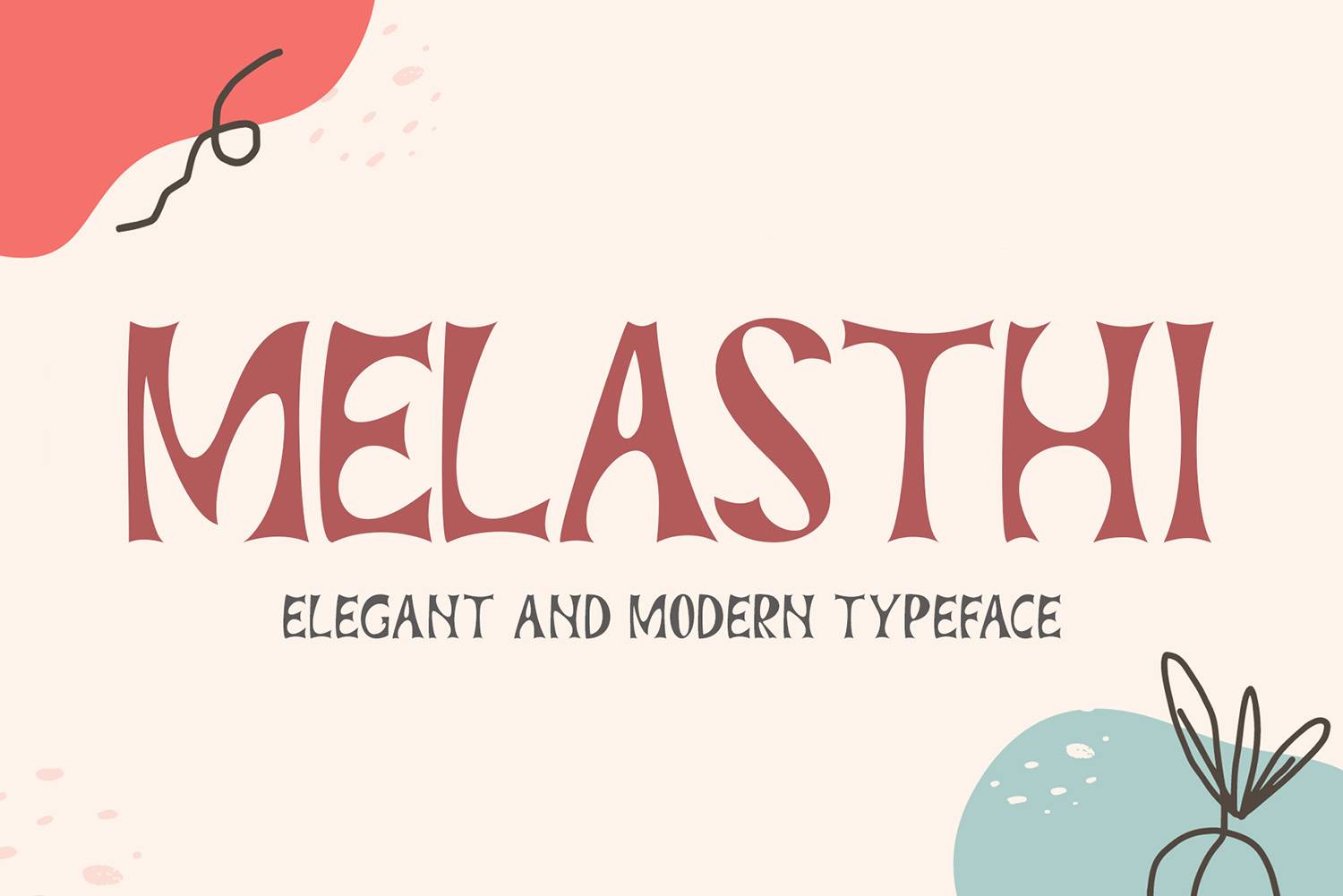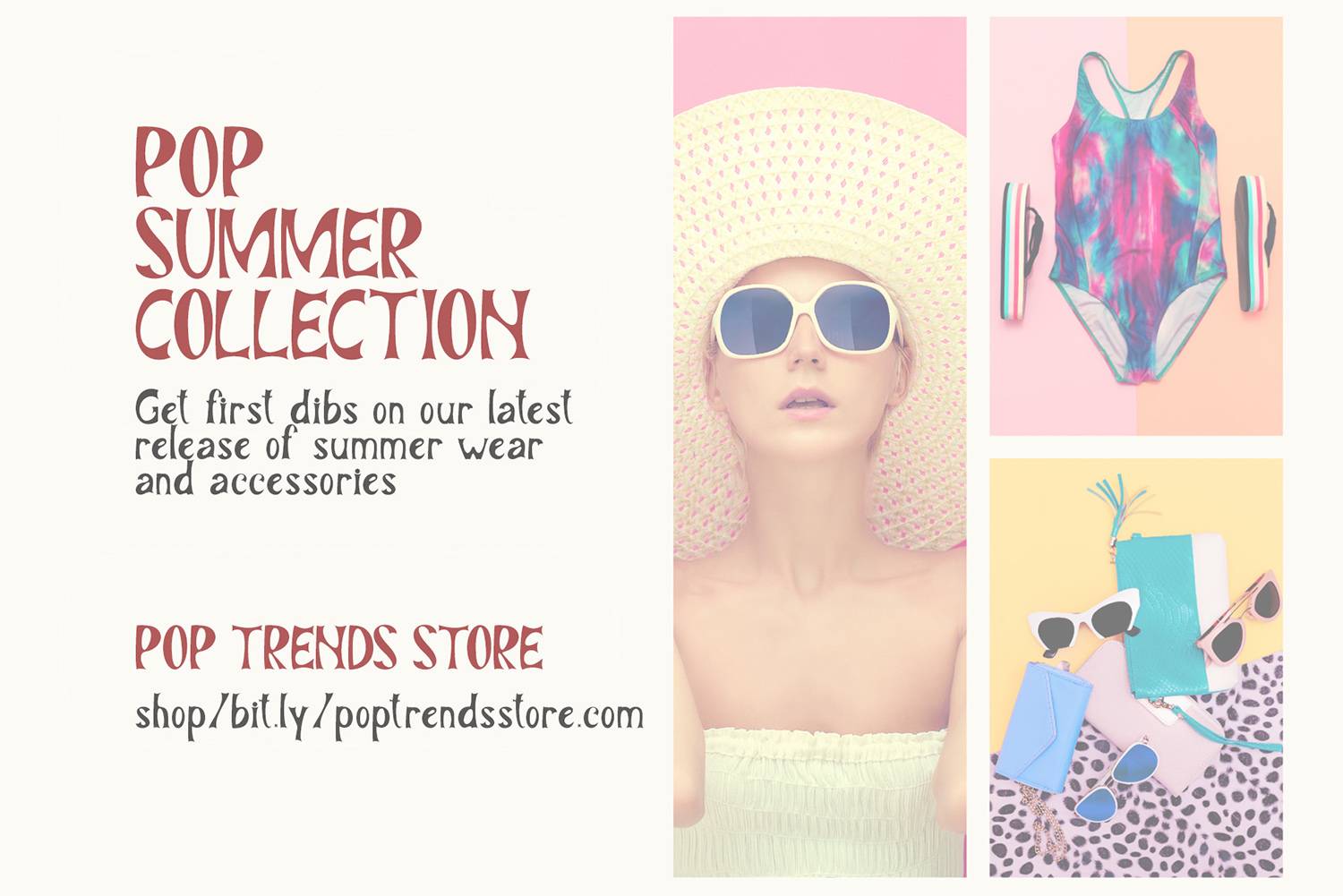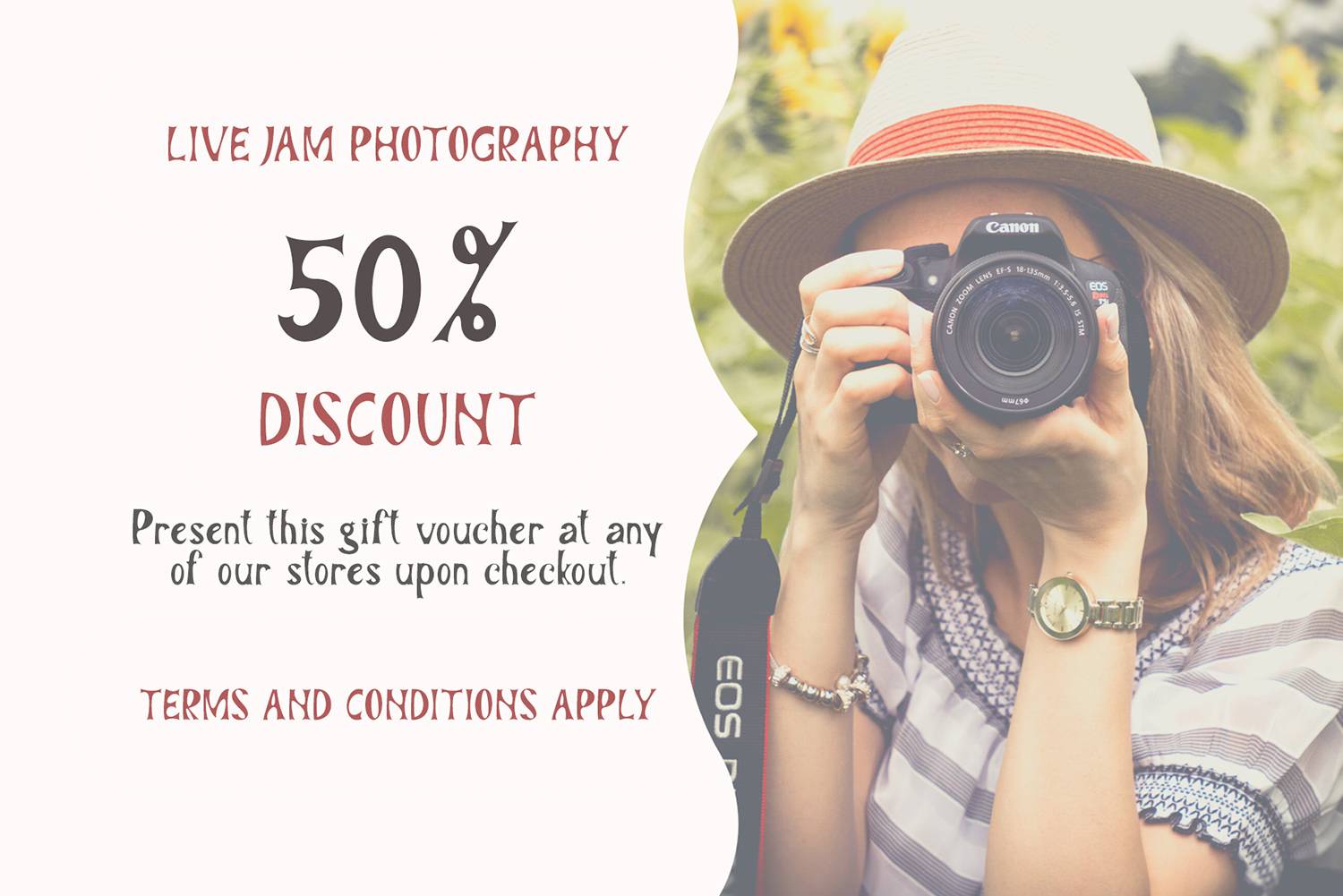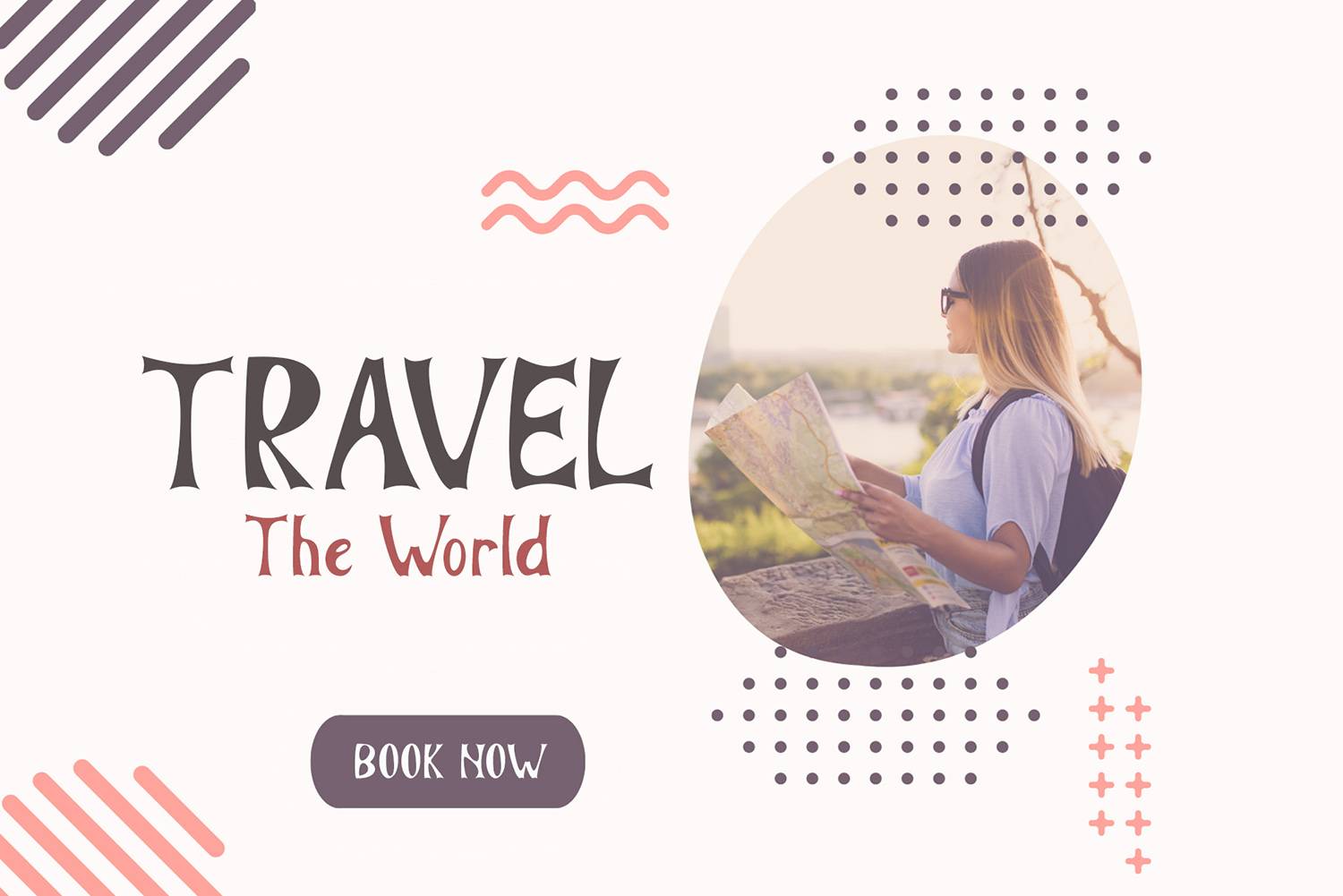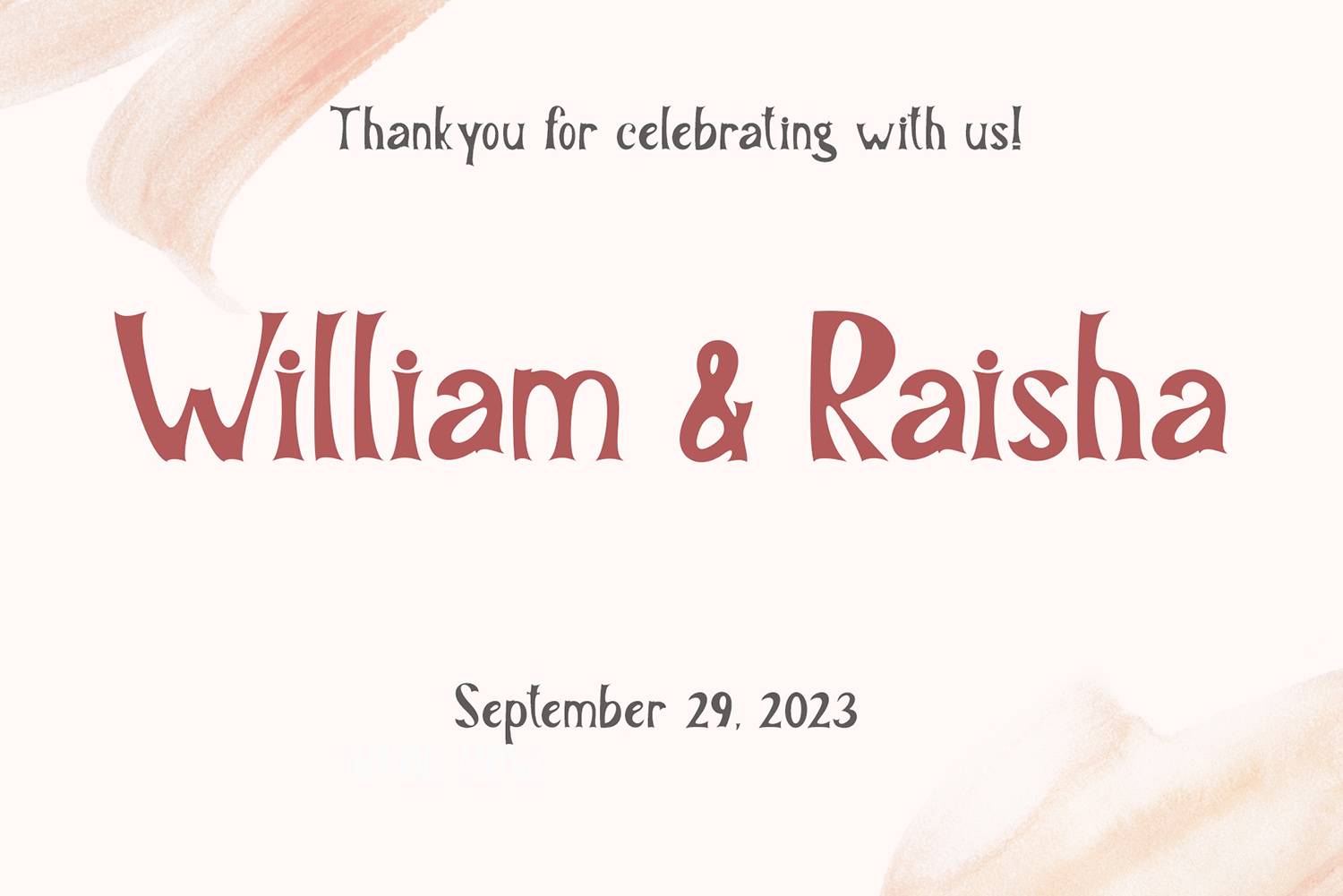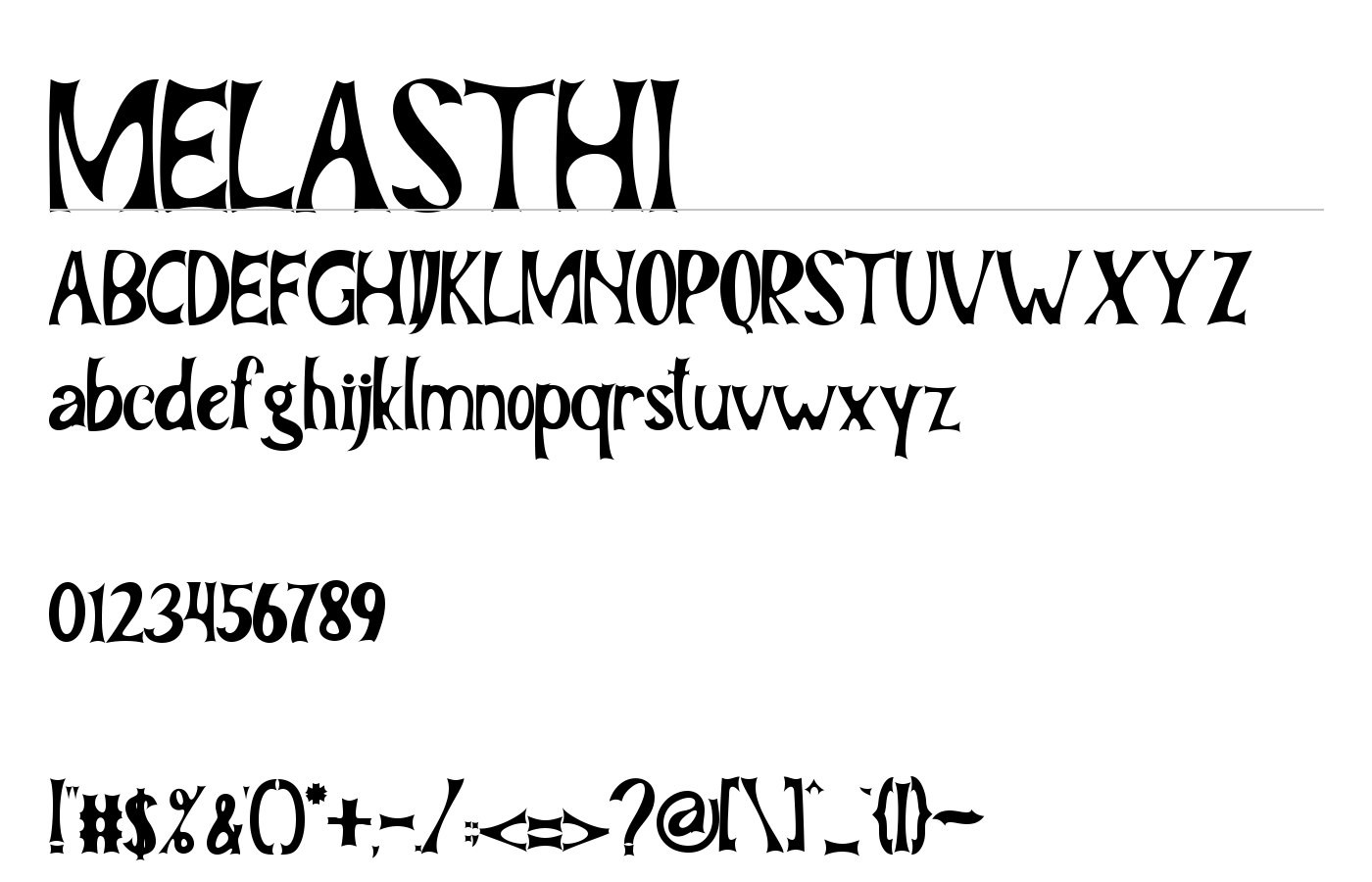
Melasthi is a decorative serif font with a bold, dramatic presence characterized by its high contrast between thick and thin strokes and unique, flared serifs that give it a theatrical, vintage flair. Its tall letterforms and tight spacing make it ideal for eye-catching headlines, logos, and designs that need a strong, artistic personality with a touch of elegance and mystery. This font suits creative projects in fashion, entertainment, and branding where a distinctive, memorable style is desired.
| Font family | Melasthi Font |
| Release date | 2022-07-03 |
| Designer | Yoga Letter 2022 (Isroni Yoga Prasetya) |